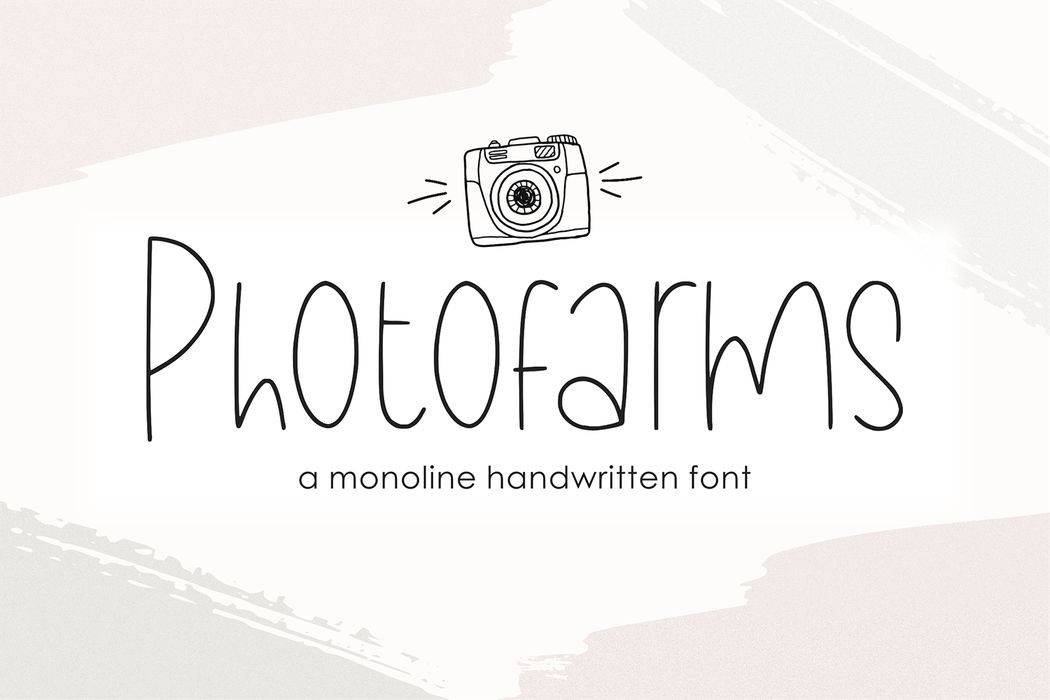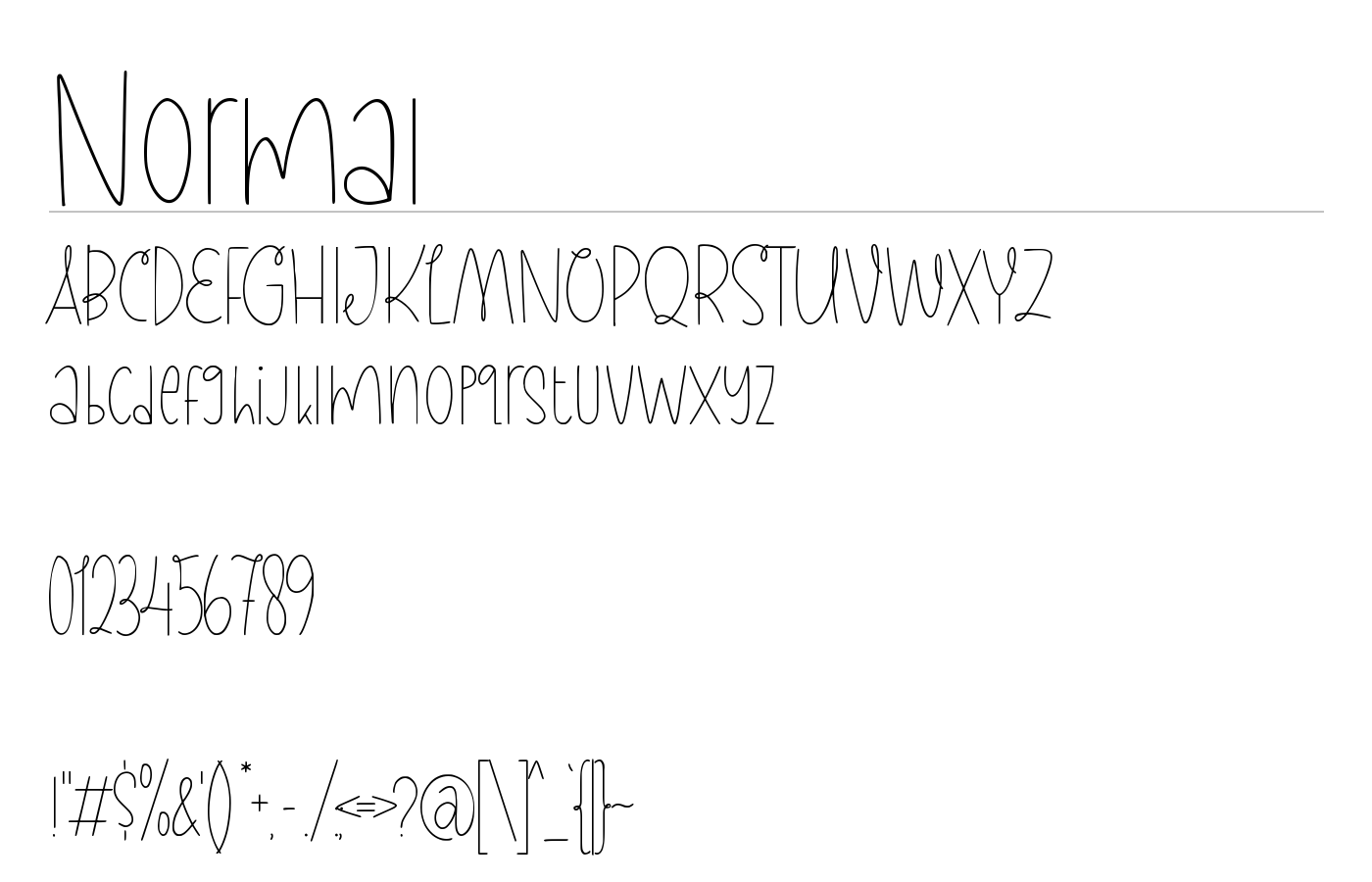
Photofarms is a delicate, hand-drawn sans serif font with tall, narrow letterforms and playful, whimsical details that give it a quirky yet elegant personality. Its thin, light strokes and elongated shapes make it ideal for creative, artistic projects or brands seeking a unique, friendly, and modern look. This font works well in logos, invitations, and headlines where a distinctive, airy style can truly stand out.
Photofarms Font
About Photofarms Font